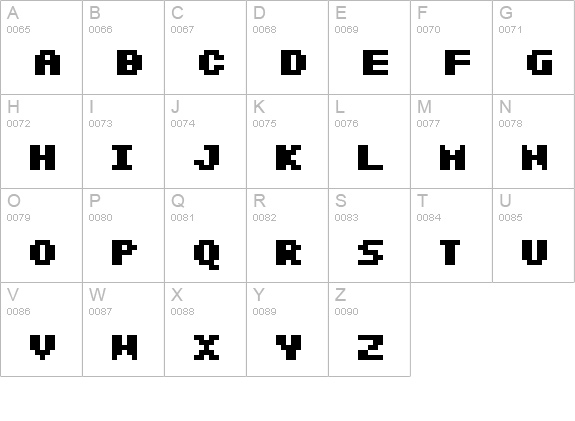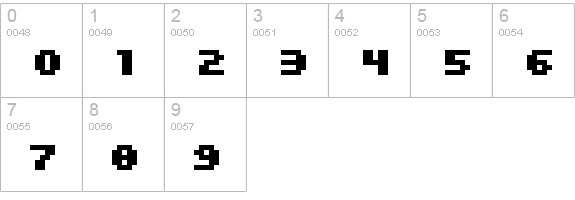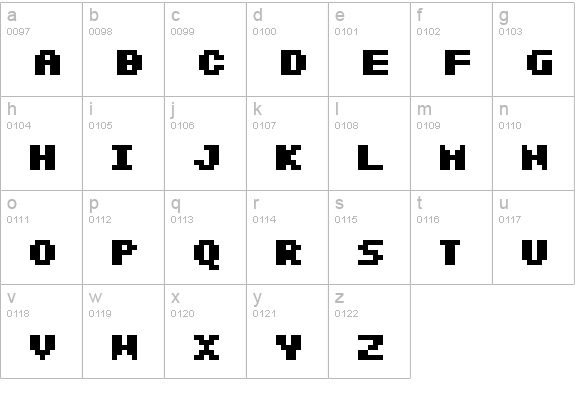
SF Intermosaic Bold Font Details
SF Intermosaic Bold is a strong, high-contrast variant in the SF typeface family \xE2\x80\x94 well suited to headlines, attention-grabbing titles, and strong calls-to-action.
SF Intermosaic Bold font is a stunning and versatile typeface that effortlessly combines elegance and modernity. This font is perfect for designers and creatives looking to add a touch of sophistication to their projects. With its bold and striking appearance, SF Intermosaic Bold commands attention and makes a bold statement. The clean lines and unique mosaic-inspired design elements of this font give it a distinct and eye-catching appeal, making it ideal for various purposes such as branding, advertising, packaging, headlines, and more. Whether you're creating a logo, designing a poster, or crafting a website, SF Intermosaic Bold will bring a sense of style and professionalism to your work. What sets SF Intermosaic Bold font apart is that it is not only visually appealing but also conveniently available to download for free at FontsMarket.com. This means that you can enjoy the benefits of this remarkable typeface without any financial constraints. This font allows you to unleash your creativity without worrying about budget limitations, making it a valuable asset for both professional designers and amateur enthusiasts. With SF Intermosaic Bold font, you have the freedom to experiment and explore various design possibilities. Its bold and commanding presence will ensure that your message stands out and leaves a lasting impression on your audience. Don't miss out on this incredible opportunity to enhance your design projects with SF Intermosaic Bold font. Download it for free at FontsMarket.com and elevate your creative endeavors to new heights.